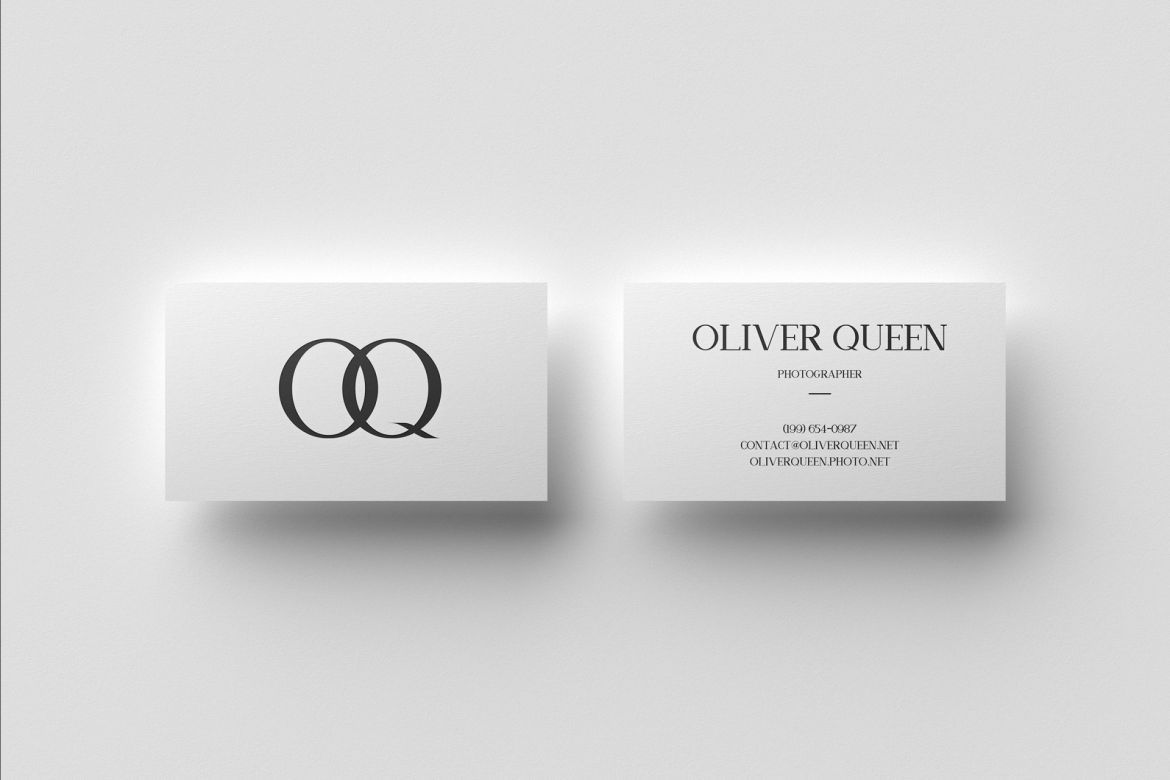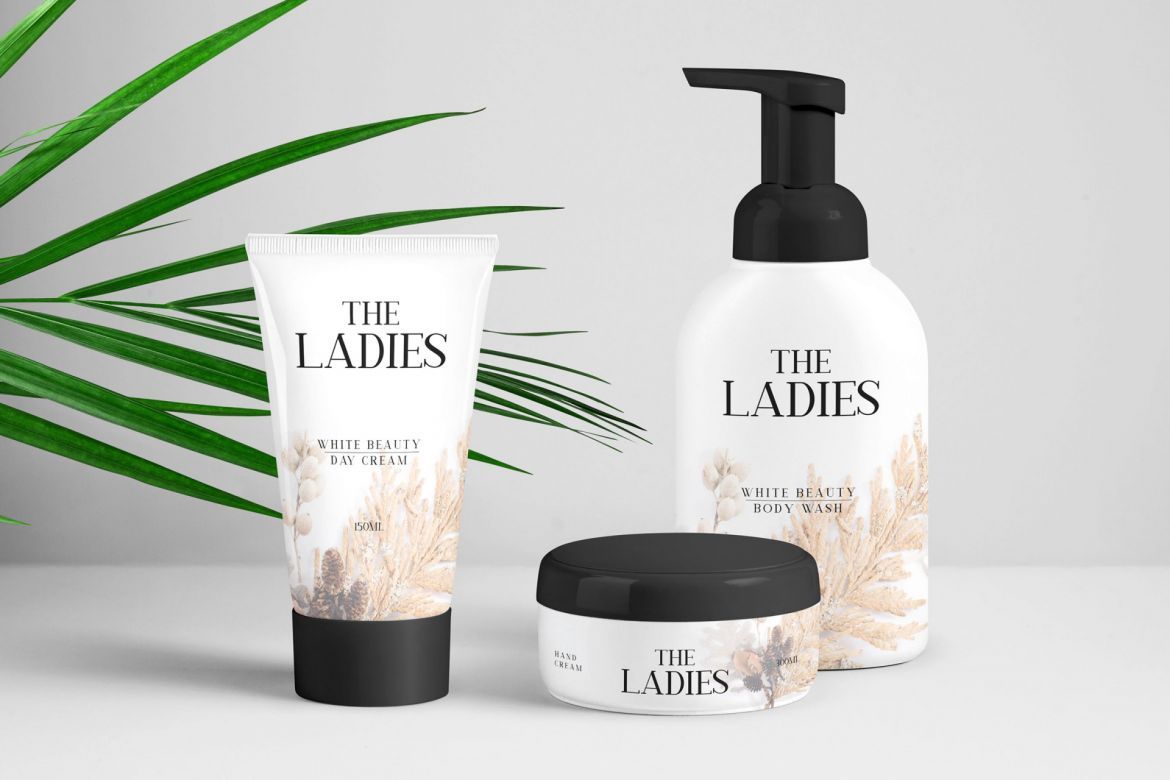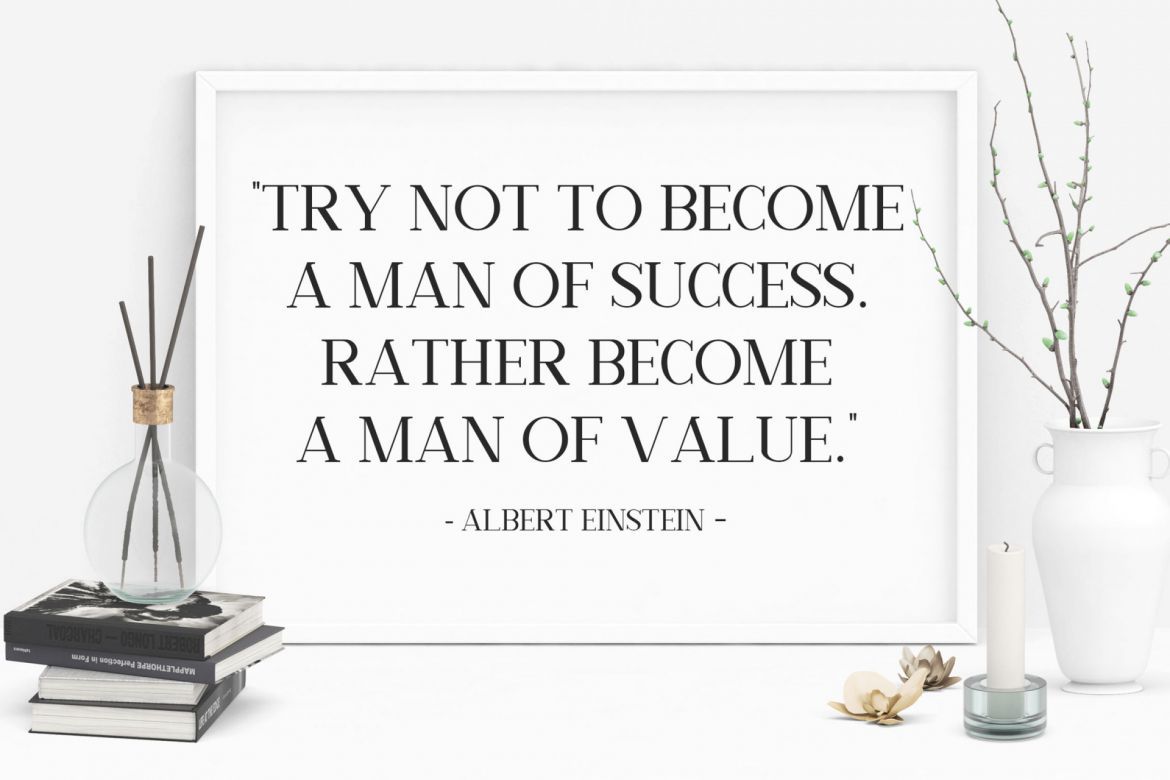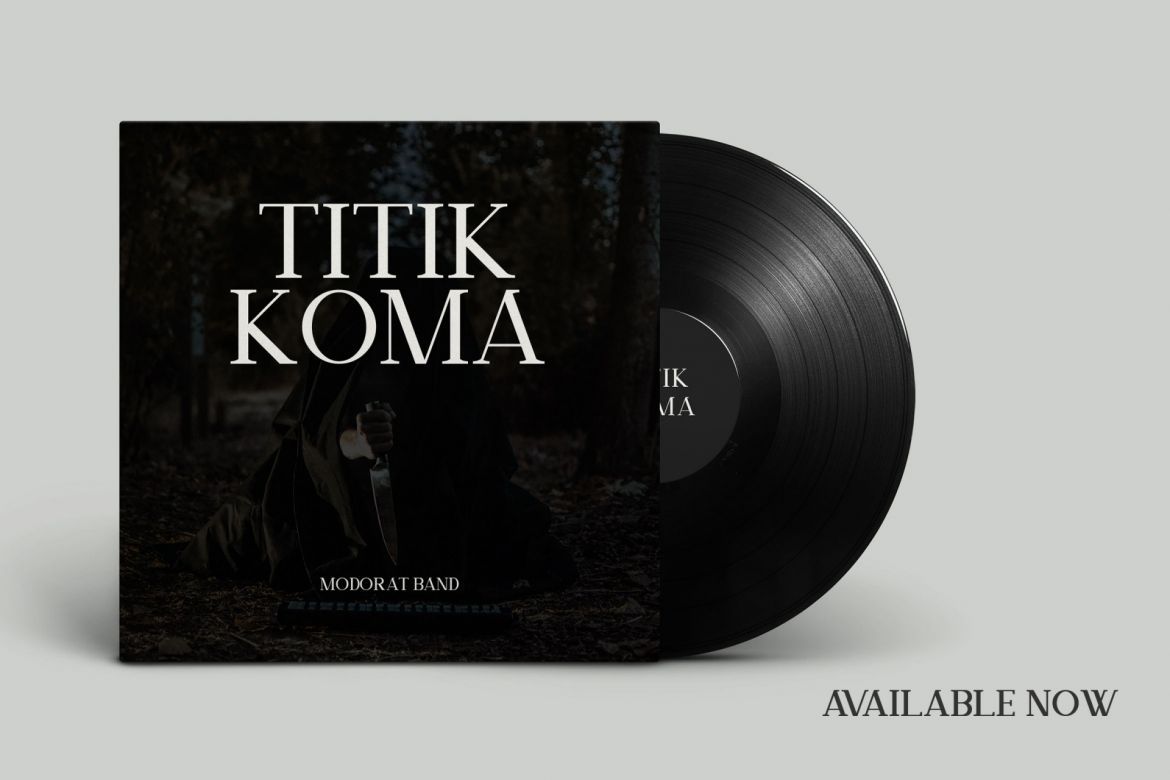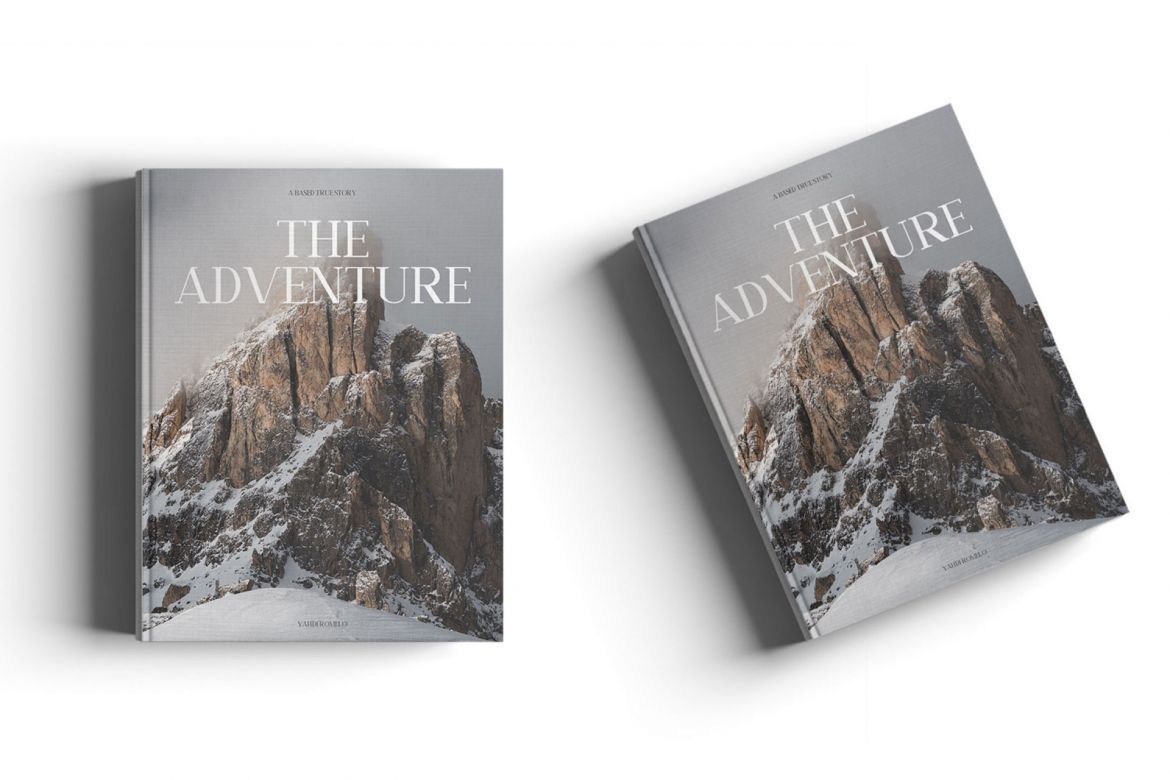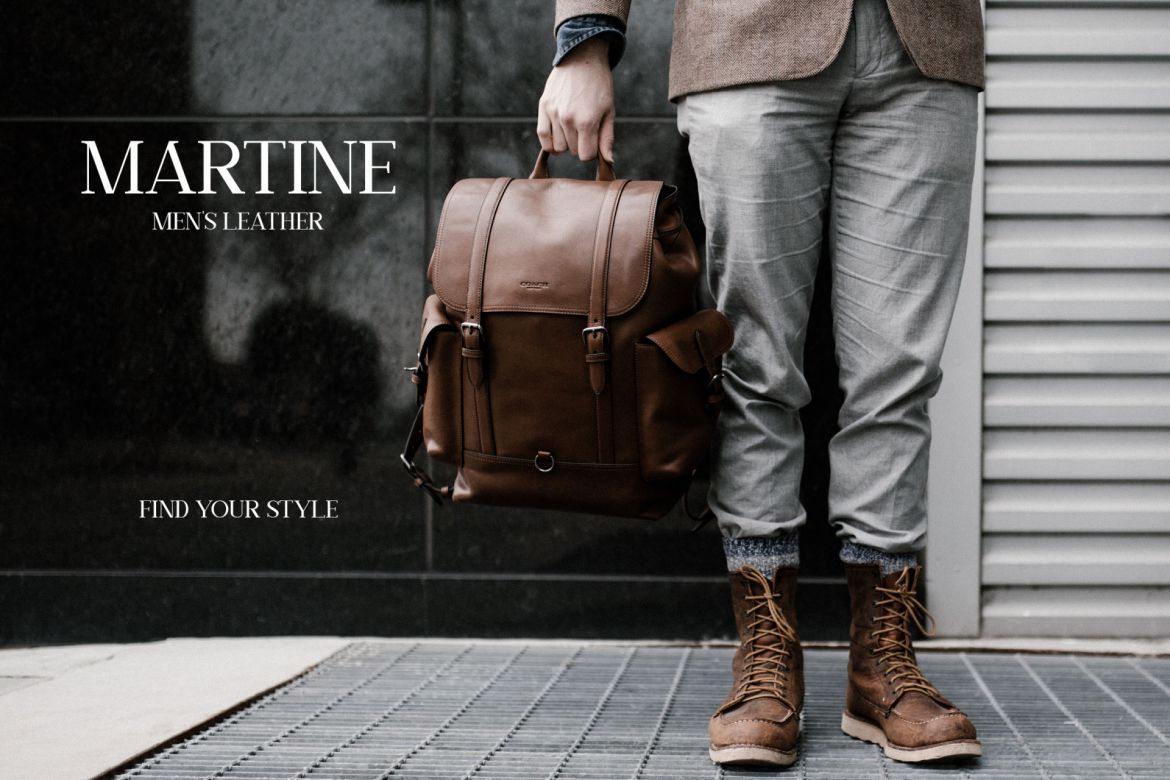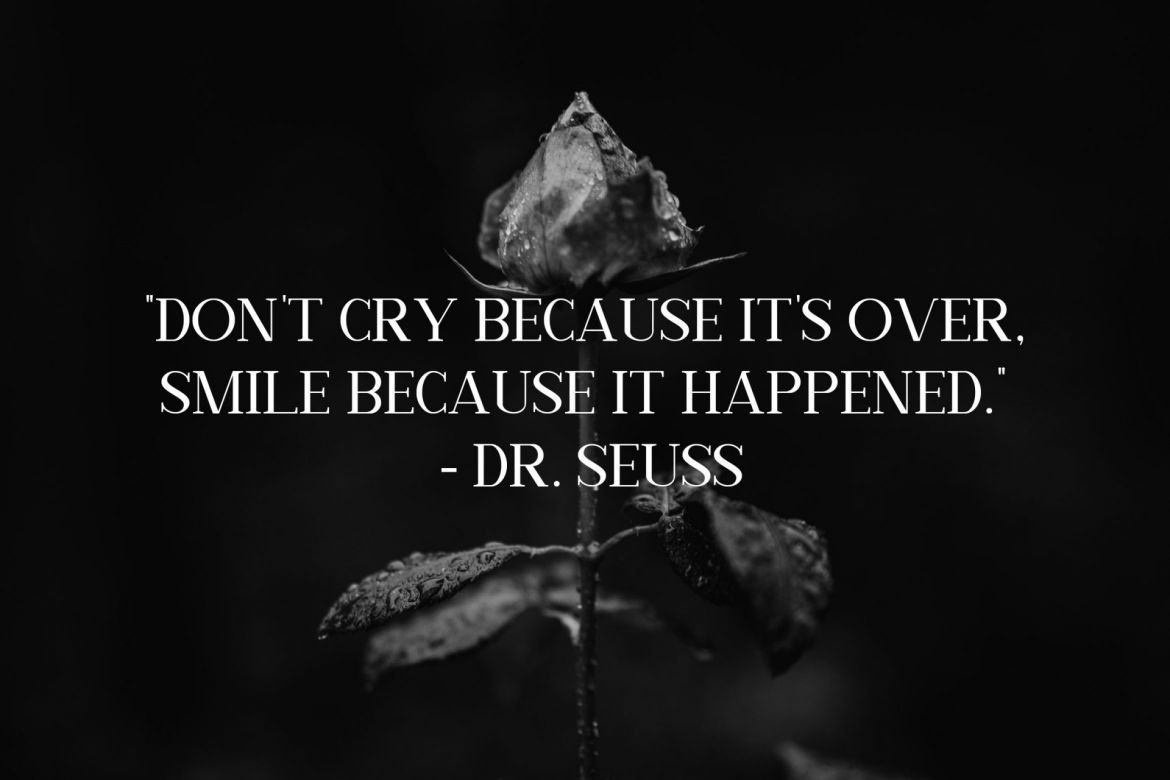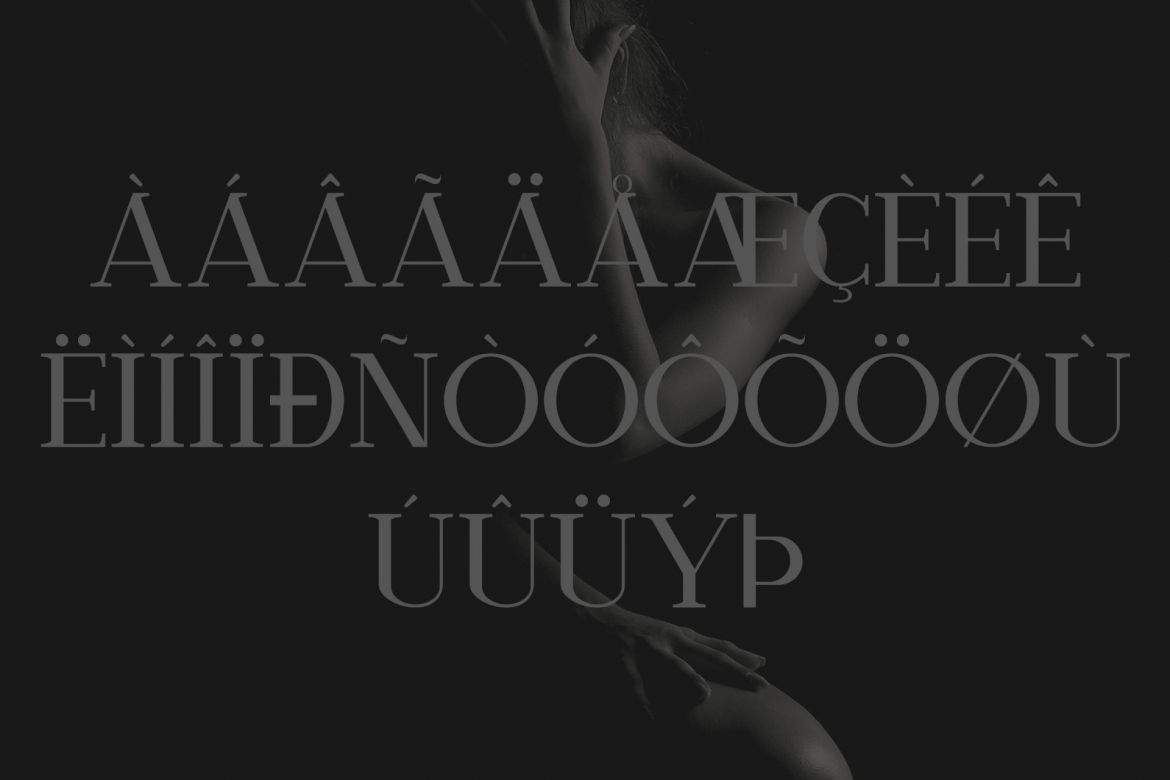
Nathanos - Serif Typeface
Introducing – Nathanos is a modern serif font typeface. This font will pair beautifully with the script, signature or handwriting style and versatile so you can use in a plethora of designs in both digital and print applications.